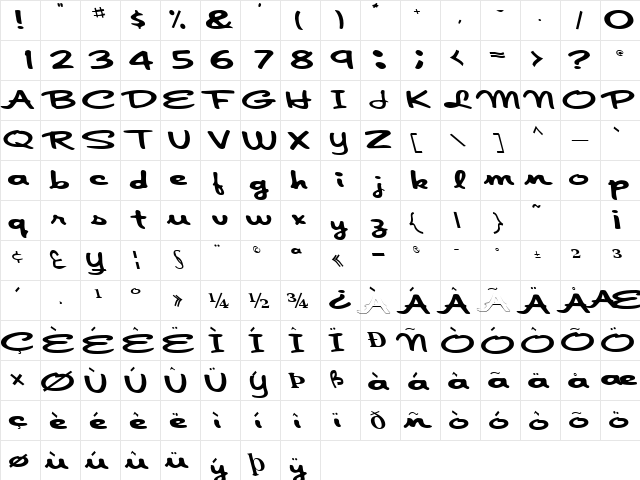
FooteDragging911 Regular
Design Context for FooteDragging911 Typeface
FooteDragging911 is a composed and adaptable typeface that performs quietly and consistently across a wide range of design contexts.